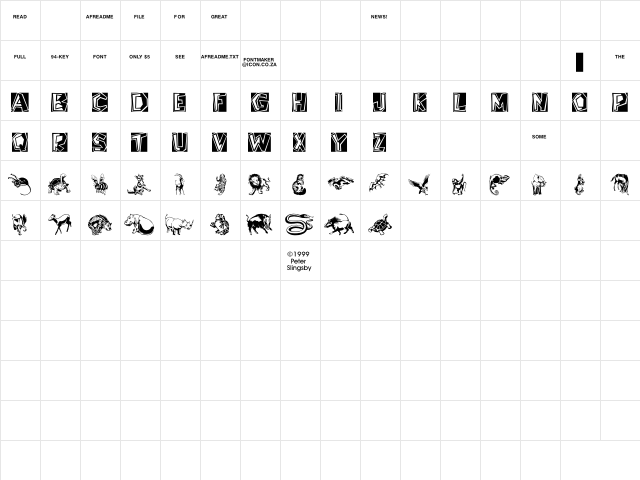
Afrika Phunny Phauna Demo Regular
Design Context for Afrika Phunny Phauna Demo Typeface
Afrika Phunny Phauna Demo is a composed and adaptable typeface that performs quietly and consistently across a wide range of design contexts.